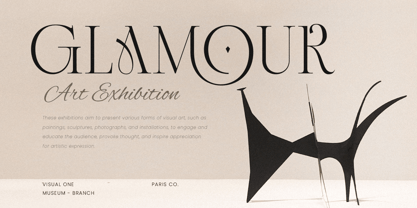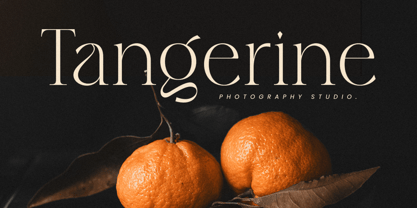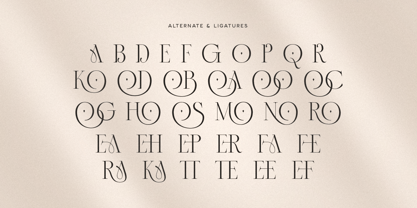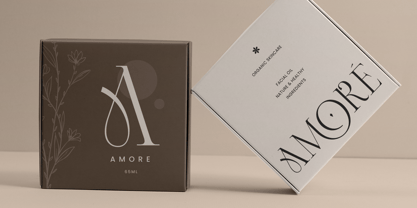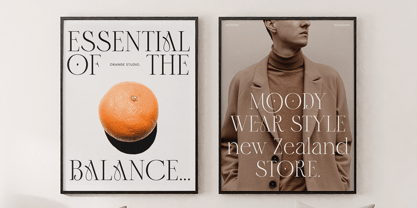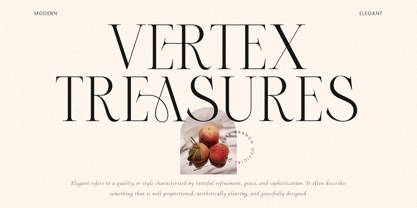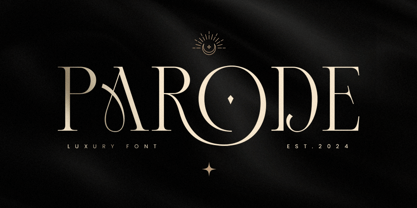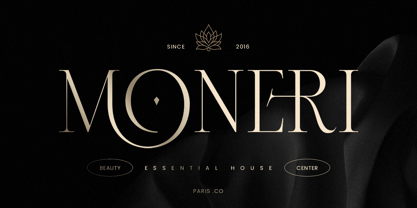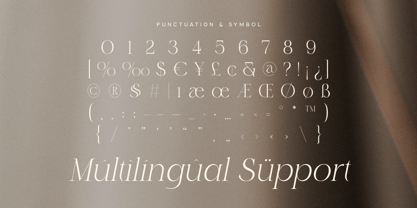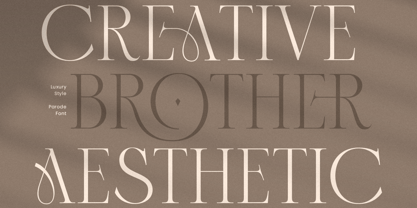
Parode
The Parode Font Family was designed by Zamroni Hamzah and published by Sensatype Studio. Parode contains 2 styles and family package options. More about this family
Parode is a font that exudes luxury and elegance, making it the perfect choice for sophisticated logo designs and high-end branding. Inspired by classic typography with a modern twist, Parode brings a touch of refinement to any project. Its sleek and stylish characters are crafted to stand out, ensuring your brand leaves a memorable impression.
The story behind Parode is one of meticulous design and attention to detail. Every character has been carefully sculpted to provide a harmonious blend of form and function, resulting in a font that is both beautiful and highly versatile. Parode's unique flair is ideal for upscale products, luxury services, and exclusive events, making it a must-have for designers aiming to create a sense of grandeur.
Parode comes equipped with a full set of punctuation, numbers, and symbols, as well as both uppercase and lowercase letters. It supports multiple languages, making it a global asset for your design toolkit. Available in various file formats, Parode integrates seamlessly with your favorite design software, offering endless creative possibilities.
Parode Luxury Font Features:
• Punctuation, Number, and Symbol
• Uppercase and Lowercase
• Multilingual Support
• Ligature Characters
• Opentype Features